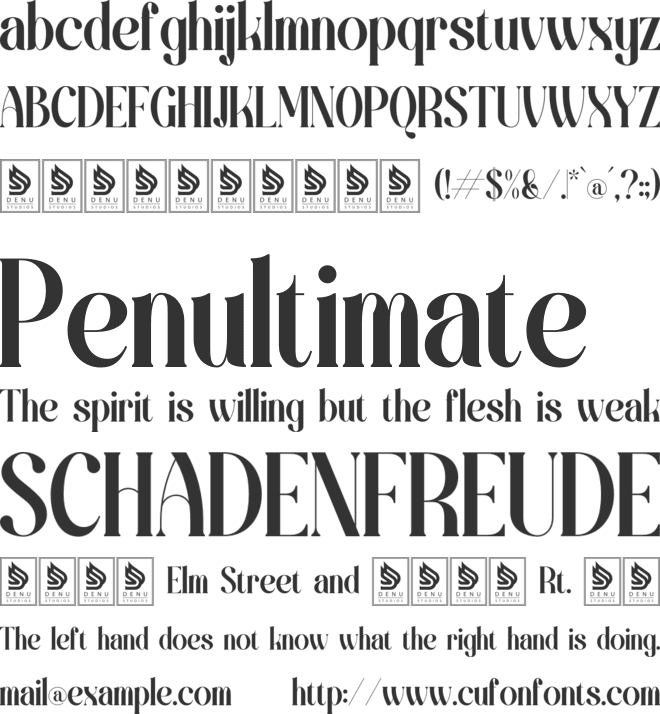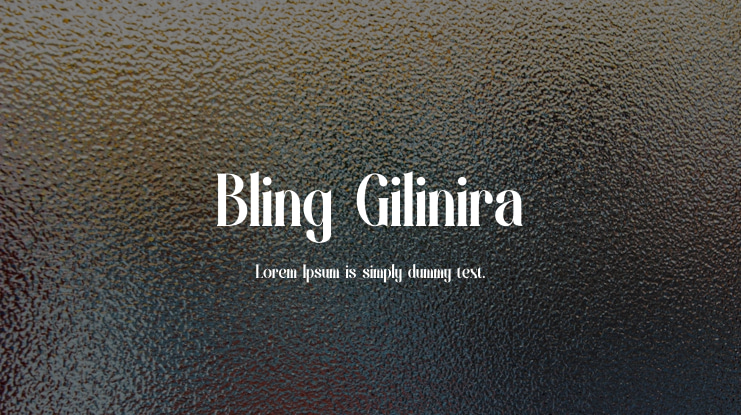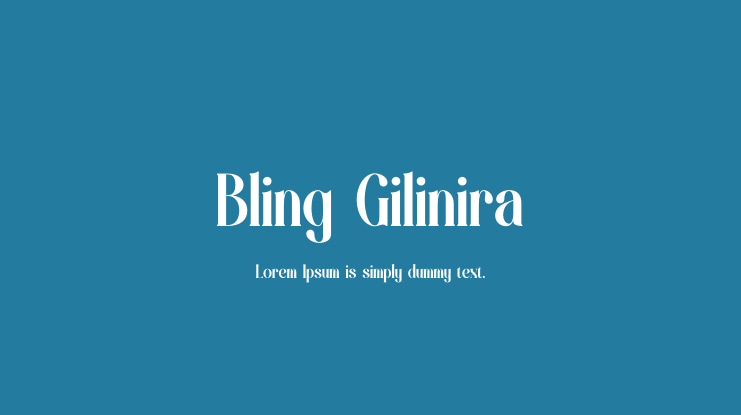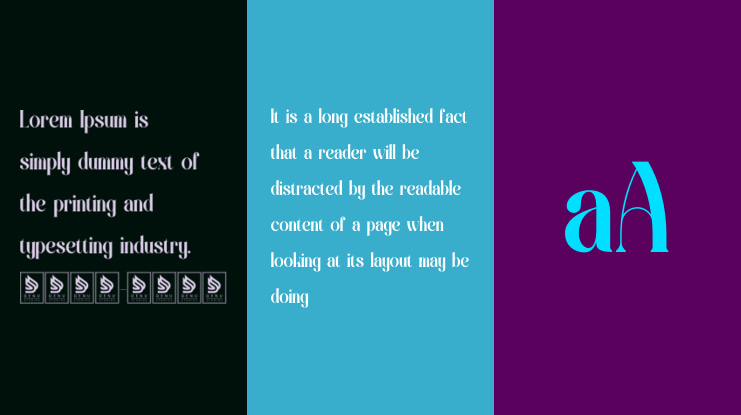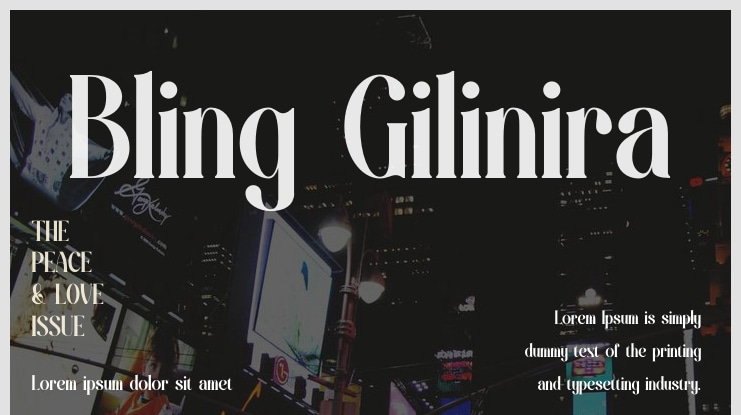
**Bling Gilinira | Display Serif Font**
Bling Gilinira is the perfect Display Serif Font for various projects such as logos, branding, homeware designs, product packaging, mugs, quotes, posters, shopping bags, t-shirts, book covers, business cards, invitation cards, greeting cards, labels, photography, watermarks, special events, and any other creative endeavors that require a touch of Display Serif Font elegance.